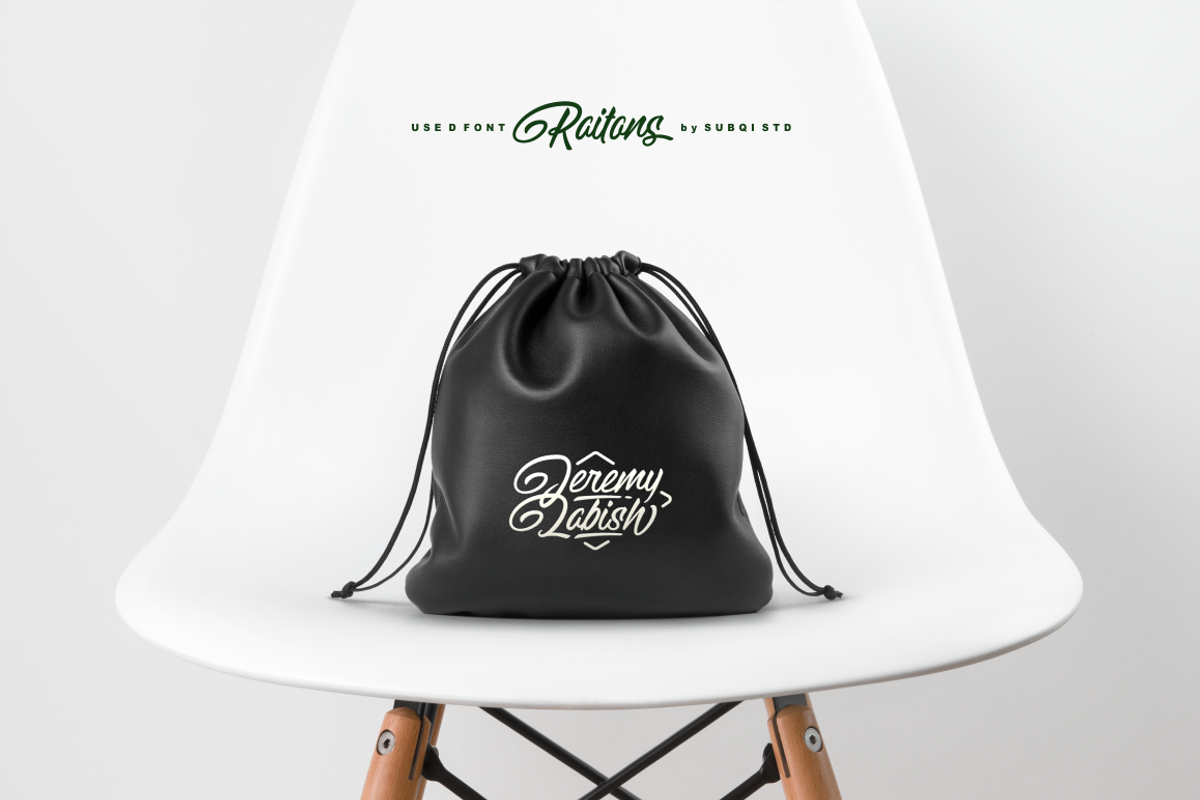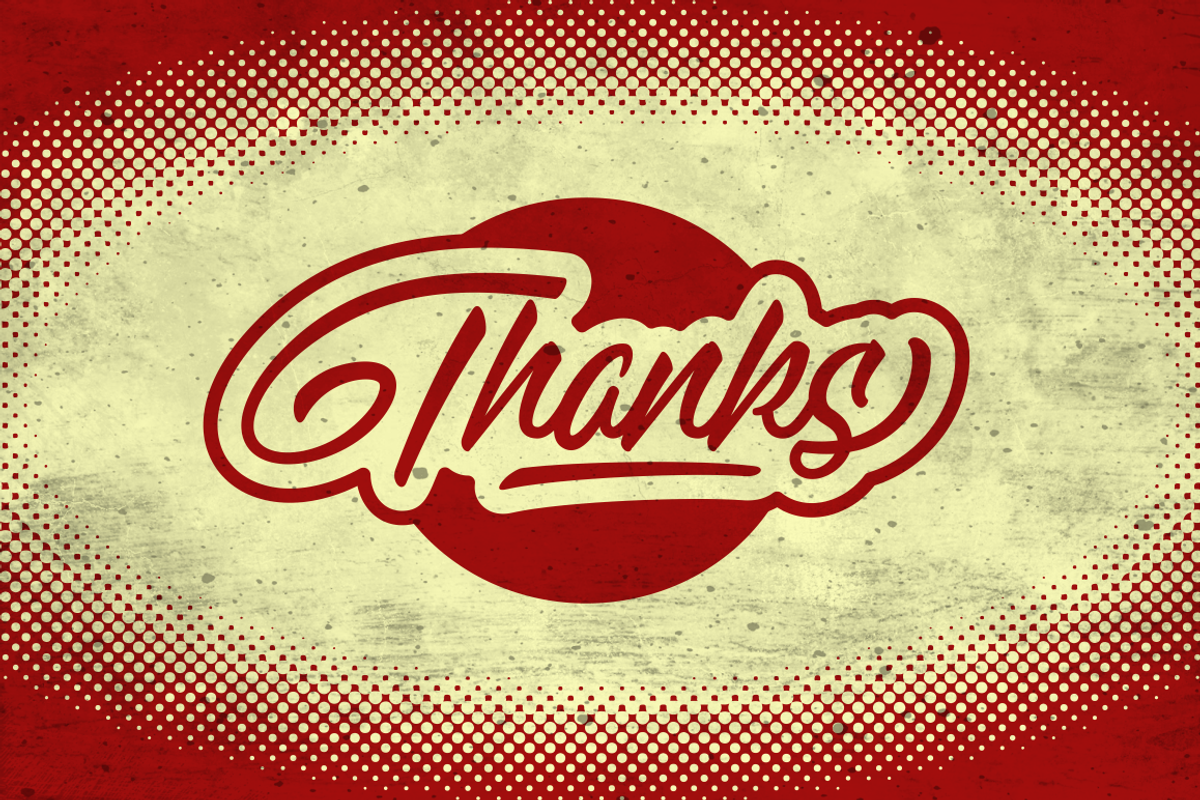
Raitons
It's been awhile since my last font. So here is it.. my brand new font, Raitons. A display script font, perfect for many display purposes. Works well on both modern and vintage style. You can check the preview samples for trigger some ideas maybe.
- Standard Character ( Uppercase, Lowercase, Numeric, Punctuation )
- Multilingual Accent Support
- Alternates Character